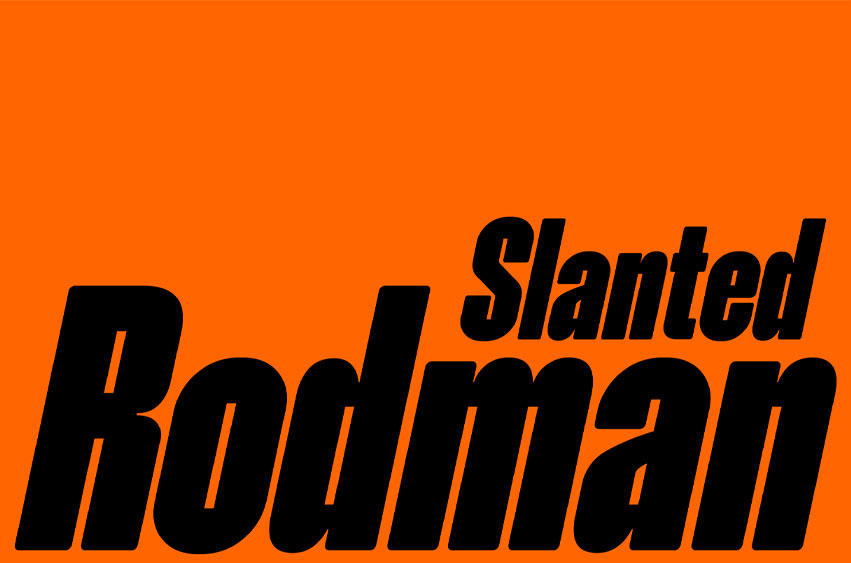
Rodman Slanted Font
Rodman Slanted Font is a bold, condensed typeface that offers a commanding presence with its single weight. Designed to make an impact, it is perfect for headlines, posters, and any content that demands attention. Supporting 269 languages, this versatile font is equipped with 419 glyphs per style, ensuring extensive multilingual compatibility. Its consistent stroke width and vertical stress contribute to a modern and clean aesthetic. Overall, Rodman is a robust and adaptable choice for diverse design needs.
• Supporting 269 Languages
• Number
• Slanted style
• Multilingual & Ligatures